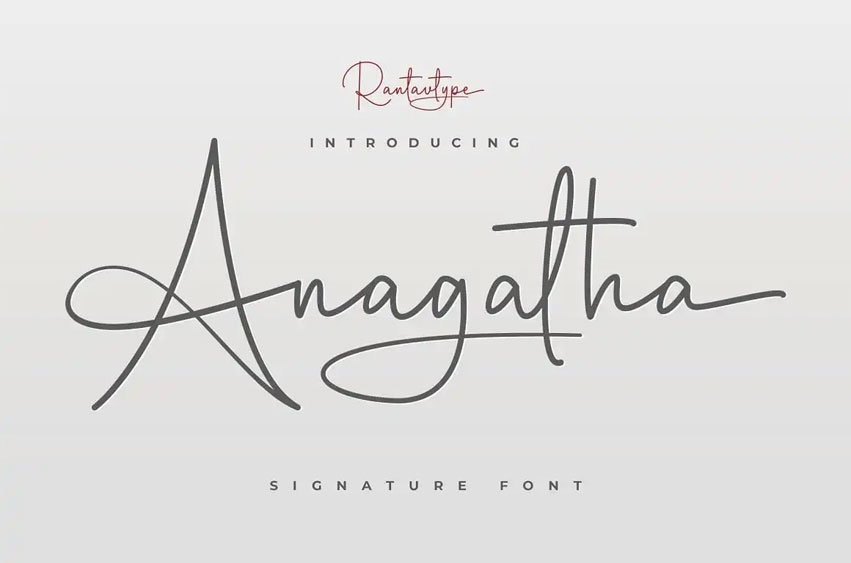
Anagatha Font is an elegant style that can be interpreted professionally. We keep this font elegant, luxurious, premium, modern, readable, stylish, catchy and easy to use also included with more swash.
Anagatha is the great choice for watermark on photography, signature or signature logo design, quotes, album cover, magazine, business card and many other design project. Anagathahere to make your work to high level!!